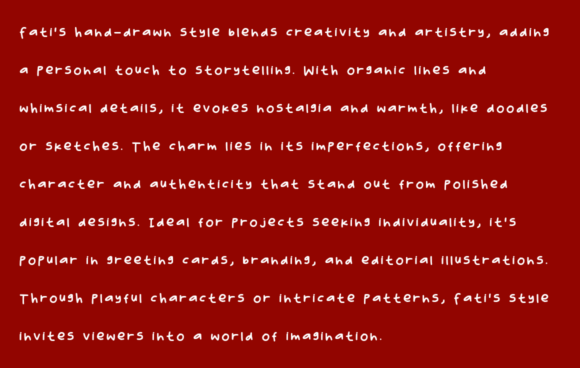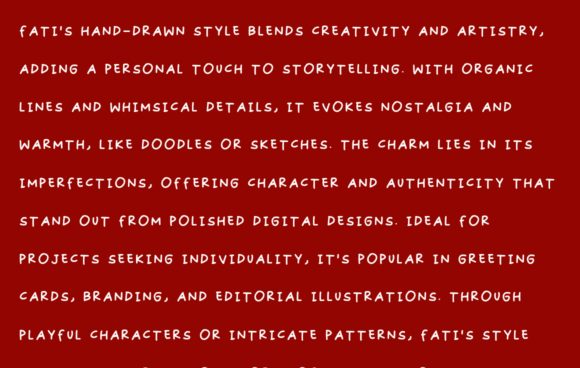
Embracing the Authentic Charm of Hand Drawn Style Fonts
In the digital age, where typography plays a crucial role in communication and design, the Hand Drawn Style font stands out as a beacon of authenticity and warmth. This wonderfully organic and casual handwritten typeface is not just a font; it’s an experience. It brings to your projects the feel of handcrafted lettering, reminiscent of notes scribbled in haste, yet filled with personality and charm. The Hand Drawn Style font is a simple, monolinear structure with a gentle, slightly whimsical flow that captures the essence of comfortable, genuine penmanship.
The Unique Characteristics of Hand Drawn Style Fonts
One of the most distinctive features of the Hand Drawn Style font is its soft imperfections and variations in the glyphs. Unlike uniform, machine-generated fonts, this typeface offers a unique, personal touch that instantly makes your project feel approachable and warm. Each letter, with its subtle inconsistencies, tells a story of being crafted by a human hand, bringing a level of intimacy and relatability that is hard to achieve with more polished typefaces.
The gentle flow and simple structure of the Hand Drawn Style font contribute to its readability and versatility. It’s a font that doesn’t shout for attention but rather invites the reader into a conversation. This quality makes it an excellent choice for a wide range of applications, from personal and creative projects to more professional uses where a touch of personality is desired.
Applications of Hand Drawn Style Fonts
The Hand Drawn Style font is incredibly versatile, making it suitable for various creative endeavors. Here are some of the ideal applications for this charming typeface:
- Personalized Invitations: Whether it’s a wedding invitation, a birthday party, or a casual get-together, the Hand Drawn Style font adds a personal and intimate feel that makes the invitation special.
- Social Media Posts: In a world where social media dominates our interactions, using a Hand Drawn Style font can make your posts stand out. It adds a touch of warmth and genuineness that is often lost in digital communication.
- Craft Labels: For crafters and small business owners, this font is a perfect choice for product labels. It gives your products a homemade feel that is highly valued in the craft community.
- Children’s Designs: The whimsical and playful nature of the Hand Drawn Style font makes it an excellent choice for children’s books, educational materials, and kids’ party decorations.
Bringing Genuine Artistry to Your Projects
The Hand Drawn Style font is more than just a typeface; it’s a way to bring genuine artistry and effortless charm to all your creative endeavors. In a digital world that often favors precision and uniformity, this font offers a refreshing alternative. It reminds us of the beauty of imperfection and the uniqueness of handcrafted work.
Using the Hand Drawn Style font in your projects is a way to connect with your audience on a more personal level. It speaks to them in a friendly, approachable voice, making your message more relatable and engaging. Whether you’re a designer looking for a unique typography solution or a crafter aiming to add a personal touch to your products, this font is an invaluable resource.
The Hand Drawn Style font is a delightful addition to any designer’s or crafter’s toolkit. Its authentic charm, organic feel, and versatility make it an ideal choice for a wide range of projects. By embracing the imperfections and unique characteristics of this handcrafted typeface, you can bring a touch of warmth, personality, and genuine artistry to your work. So, if you’re looking to add a personal touch to your designs, consider the Hand Drawn Style font. It’s a simple way to make your projects feel more approachable, relatable, and endearingly human.